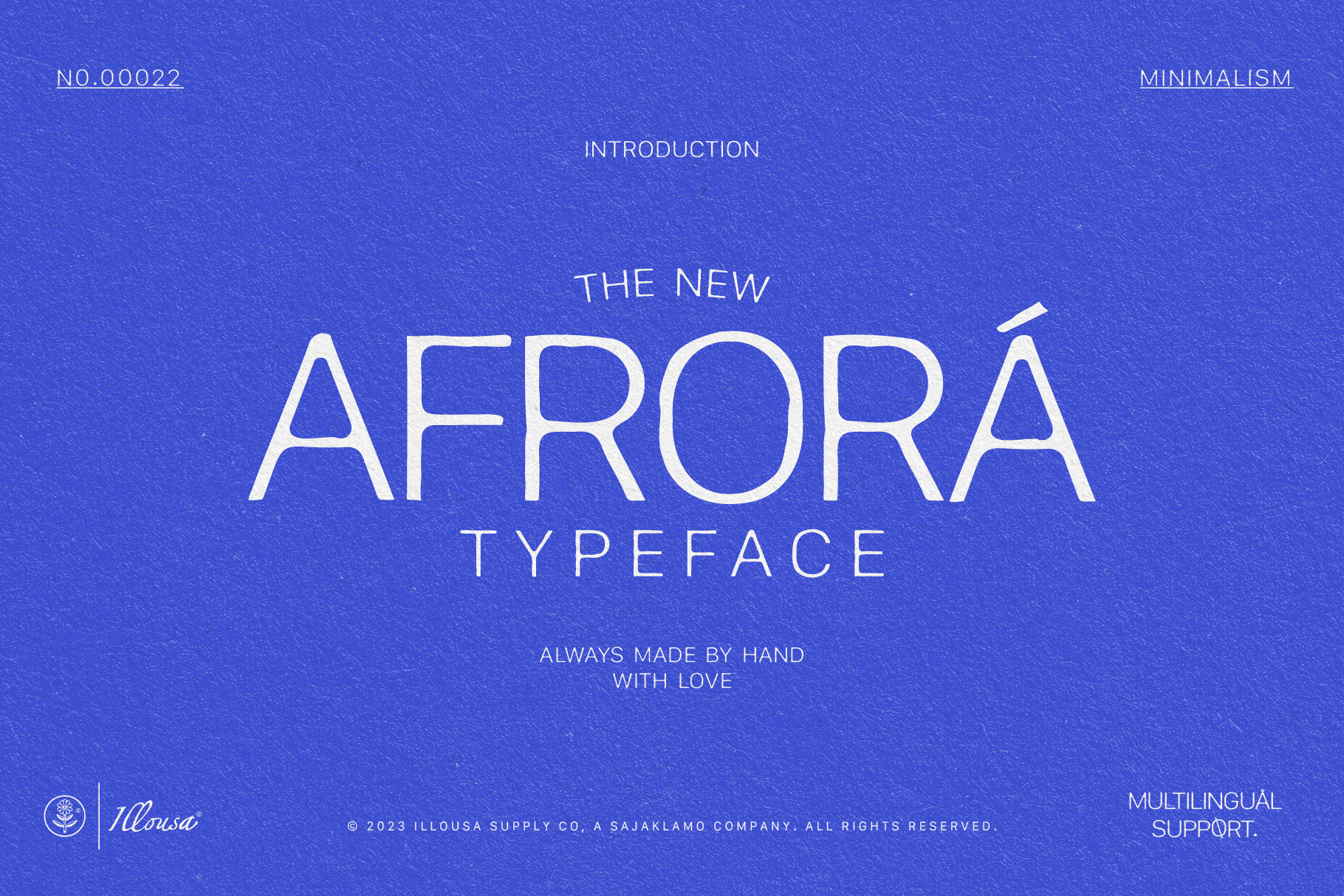
Afrora | Minimalist Sans Serif Font
Afrora Minimalist Sans Serif Font is a clean and modern vintage-inspired typeface designed with simplicity and elegance. Featuring both clean and subtle textured styles, Afrora delivers a timeless minimalist aesthetic perfect for logos, branding, posters, packaging, editorial layouts, and digital design. Its refined design combines modern readability with nostalgic vintage charm, making it versatile for professional and creative projects.
- Minimalist vintage sans serif style
- Two font textures: Clean & Subtle Textured
- Strong visual presence for headlines & logos
- Elegant, timeless design suitable for modern layouts
- Uppercase & lowercase letters, numerals & punctuation included
- Minimalist logos & branding
- Packaging & merchandise design
- Posters, flyers & editorial layouts
- Social media graphics & digital projects
- Clean & professional print projects